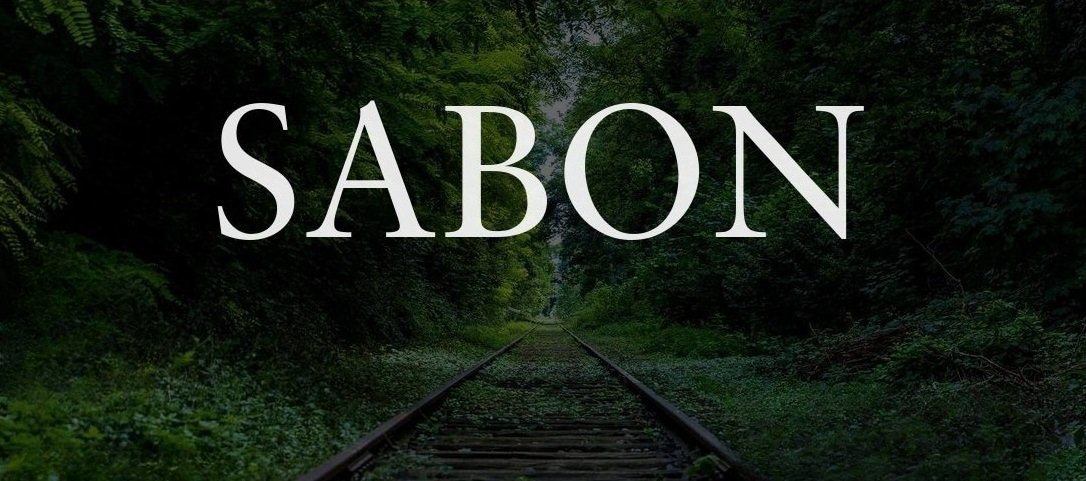
About Sabon Roman Font
Sabon Roman is a timeless serif typeface designed for clarity and elegance in printed text. Created by renowned typographer Jan Tschichold, it embodies the principles of classic book typography. Its balanced proportions make it highly readable and visually harmonious. Sabon Roman is widely used in publishing, editorial layouts, and professional documents. The font combines traditional serif aesthetics with subtle modern refinements. Its versatility makes it a favorite choice for designers seeking both beauty and legibility.